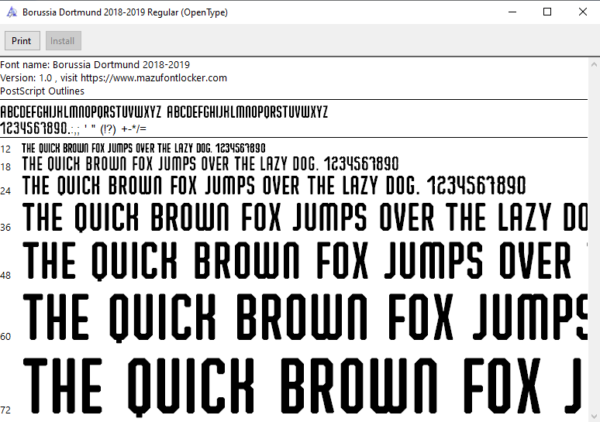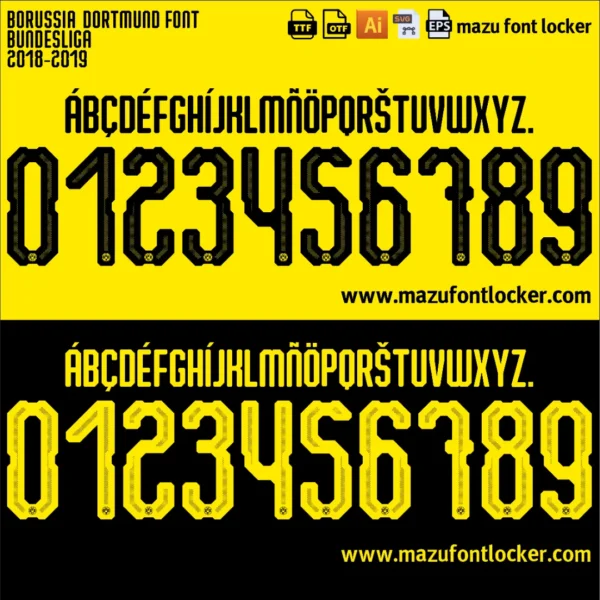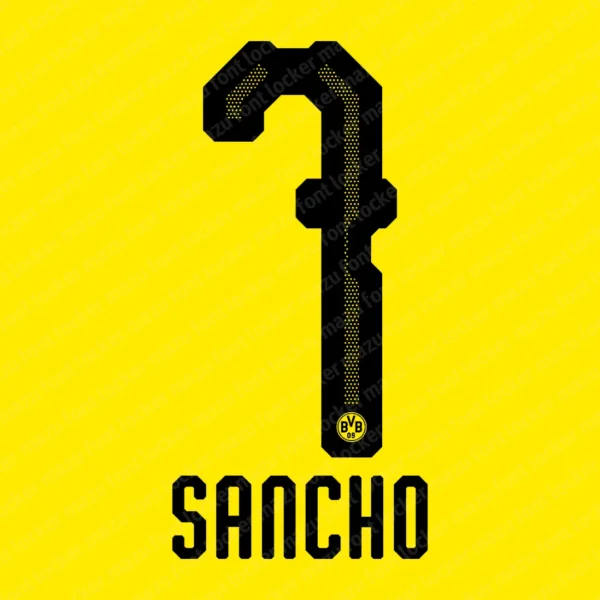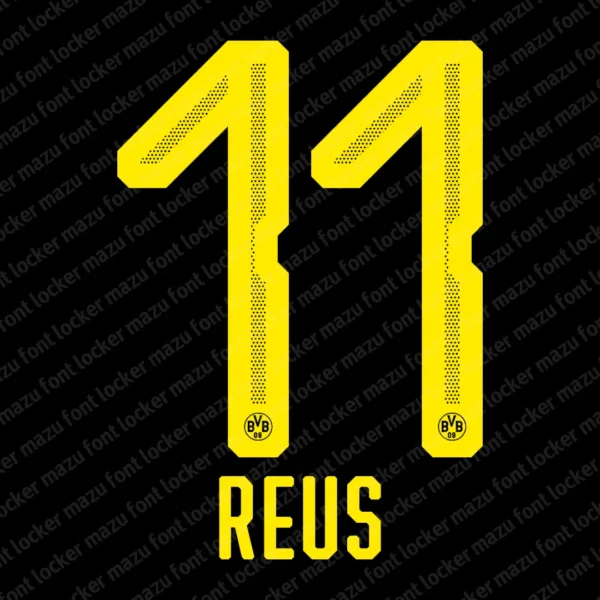
Borussia Dortmund 2018-2019 Font Vector – Ultimate BVB Warrior Masterpiece
This premium font captures the commanding, iconic, majestic, and war-machine lettering that embodies the unstoppable BVB spirit — delivering raw German industrial fire, explosive Echte Liebe passion, iron-clad resilience, tactical dominance, and legendary Borussia warrior grit that made the Yellow Wall tremble.
Borussia Dortmund 2018-2019 Font Vector – Authentic Yellow & Black Typeface
The Borussia Dortmund 2018-2019 Font Vector is a premium typeface that accurately recreates the official match lettering worn by Borussia Dortmund during their energetic 2018-2019 season. This high-quality vector font kit captures the bold, intense, and passionate typography that represents the club’s rich heritage, attacking spirit, and legendary Yellow Wall atmosphere.
Designed for professional designers and passionate BVB supporters, the Borussia Dortmund 2018-2019 Font Vector delivers perfect authenticity for creating realistic jersey mockups, fan merchandise, matchday posters, social media graphics, and German football content. It pairs beautifully with the iconic yellow and black kit, one of the most recognizable club identities in European football.
This font stands out because of its sharp vector precision and strong club identity. Every letter and number is crafted to match the exact style used on the players’ shirts during Borussia Dortmund’s 2018-2019 Bundesliga and European campaign. Whether you are creating realistic kit templates or exciting BVB-themed content, the Borussia Dortmund 2018-2019 Font Vector gives your designs that authentic Signal Iduna Park atmosphere.
The letterforms in the Borussia Dortmund 2018-2019 Font Vector are bold, clean, and highly readable. The strokes feature powerful geometric construction combined with modern athletic styling and traditional German flair, creating a professional appearance that stands out on jerseys while preserving Borussia Dortmund’s legendary football heritage and competitive spirit.
The numerals feature strong curves and sharp, precise edges, delivering a confident and premium appearance. This vector design ensures flawless scalability and excellent legibility across both print and digital applications.
• Full uppercase A–Z and numbers 0–9 in authentic Borussia Dortmund 2018-2019 style
• Create highly realistic Borussia Dortmund 2018-2019 jersey mockups with accurate lettering
• Includes the exact crest glyph placement used beneath player numbers
The 2018-2019 season was a memorable chapter for Borussia Dortmund as they challenged for the Bundesliga title with high-intensity football, featuring stars like Marco Reus, Jadon Sancho, and a young squad full of pace and creativity at Signal Iduna Park.